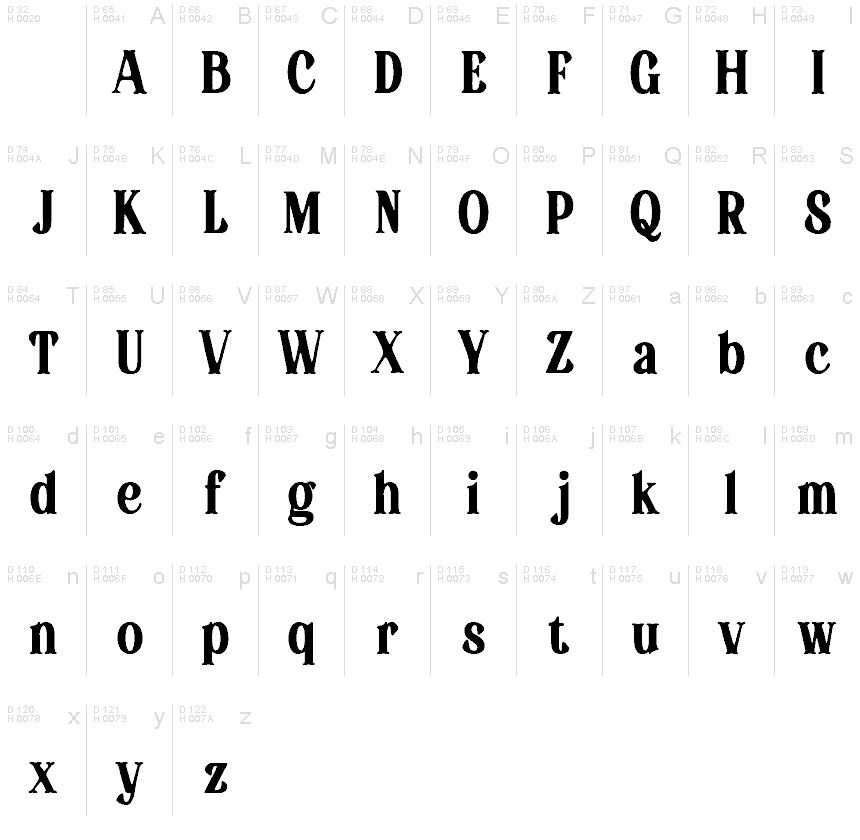
Badoney Drawn font from Craft Supply Co. combines classic vintage style with unique modern elements for a dramatic result. The free serif font evokes the nostalgia of the good old days as it presents each letter with exceptionally curved lines and elegant shapes that compel attention when used.
Badoney Drawn requires focus and this is exactly what users can accomplish whenever they use it for logotypes, fashion magazines, invitations, branding designs, book titles, quotes, illustrations projects, greeting cards, posters and blogs.